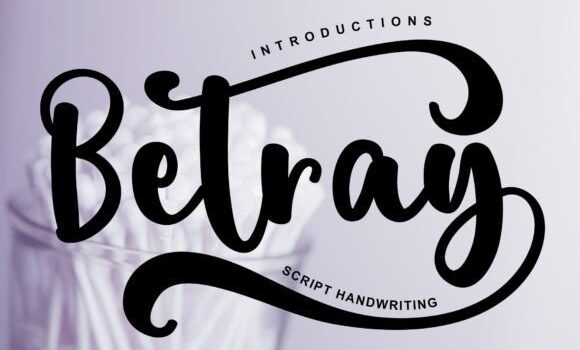
Betray Font – Free Download Introduction to Betray Font Betray is a festive and merry typeface that captures the spirit of the holiday season. 📸 Preview Gallery 6 images 📌 Product Name Betray Font 👤 Author YanStudio 📂 Category Explore